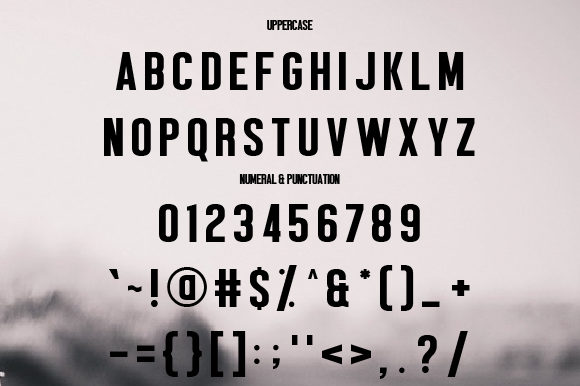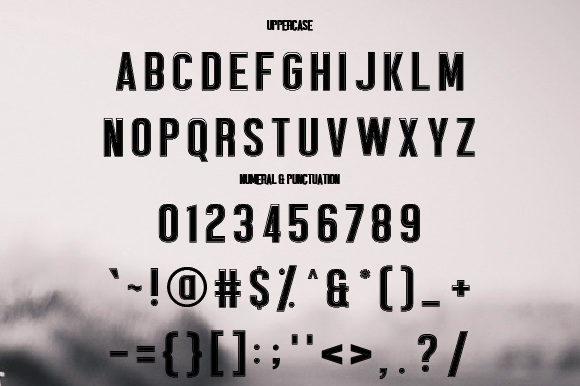
The Birth of a New Design Era: Exploring the CAD Font
Do you remember that moment when you stumbled upon a font that just clicked? The one that made your design vision come alive, and you knew you had to work with it? For many designers, that moment is what makes the creative process so thrilling. It’s the spark that sets off a chain reaction of ideas, and it’s what drives us to push the boundaries of what’s possible.
One font that has been igniting that spark in designers is the CAD Font. This striking typeface comes in two unique styles, making it perfect for a wide range of applications, from name cards to posters, logos to magazines, and even large-scale artwork. Whether you’re a seasoned pro or just starting out, the CAD Font is a valuable addition to any designer’s toolkit.
CAD Font Key Features
CAD Font Review
As a designer, I was excited to try out the CAD Font, hoping it would make my CAD design workflow more efficient. Here’s my honest review:
- CAD Font offers a wide range of scalable fonts, which is a huge plus for designers who need to work with different scales and resolutions.
- The font’s readability is excellent, even at small sizes, making it perfect for detailed CAD designs.
- The font is highly customizable, allowing designers to adjust the style, size, and color to fit their specific needs.
- The font can be quite resource-intensive, which may cause performance issues on older systems or those with limited resources.
- Some users may find the font’s user interface overwhelming, especially for those who are new to CAD design software.
- The font is not compatible with all CAD software, which may limit its use for some designers.
Overall, I found the CAD Font to be a solid choice for designers who need a high-quality, customizable font for their CAD designs. While it has some limitations, its benefits far outweigh its drawbacks. With a little practice, even new designers can get the most out of this font and take their CAD designs to the next level.
Tips for Getting the Most Out of CAD Font
Use CAD font to create technical documents, diagrams, and presentations that require a precise and technical font.
Experiment with different font sizes and styles to achieve the desired visual effect.
Combine CAD font with other technical elements, such as diagrams and charts, to create a cohesive and informative design.
CAD font is commonly used in:
Technical drawings and diagrams
Engineering and architecture presentations
Manuals and instructional guides
Technical writing and documentation
Alternatives to CAD Font for Designers
TrueType Fonts
TrueType fonts are scalable vector fonts developed by Apple and Microsoft. They are widely supported by most design and graphics software, including CAD programs. TrueType fonts offer high-quality rendering and are suitable for a wide range of applications, from logos to signage.
Comparison to CAD Font: CAD Font is a font specifically designed for CAD applications, whereas TrueType fonts are more versatile and can be used in various design fields. TrueType fonts offer better scalability and rendering quality compared to CAD Font.
OpenType Fonts
OpenType fonts are a superset of TrueType fonts, offering advanced typographic features and better support for non-English languages. They are widely used in professional design and publishing applications, including CAD software.
Can I use any font in my CAD software?
No, not all fonts are suitable for use in CAD software. CAD fonts are specifically designed to be monospaced and to display clearly at small sizes, which is not always the case with other fonts. Using a non-CAD font in your CAD software can lead to readability issues, accuracy problems, and other technical difficulties. It is recommended to